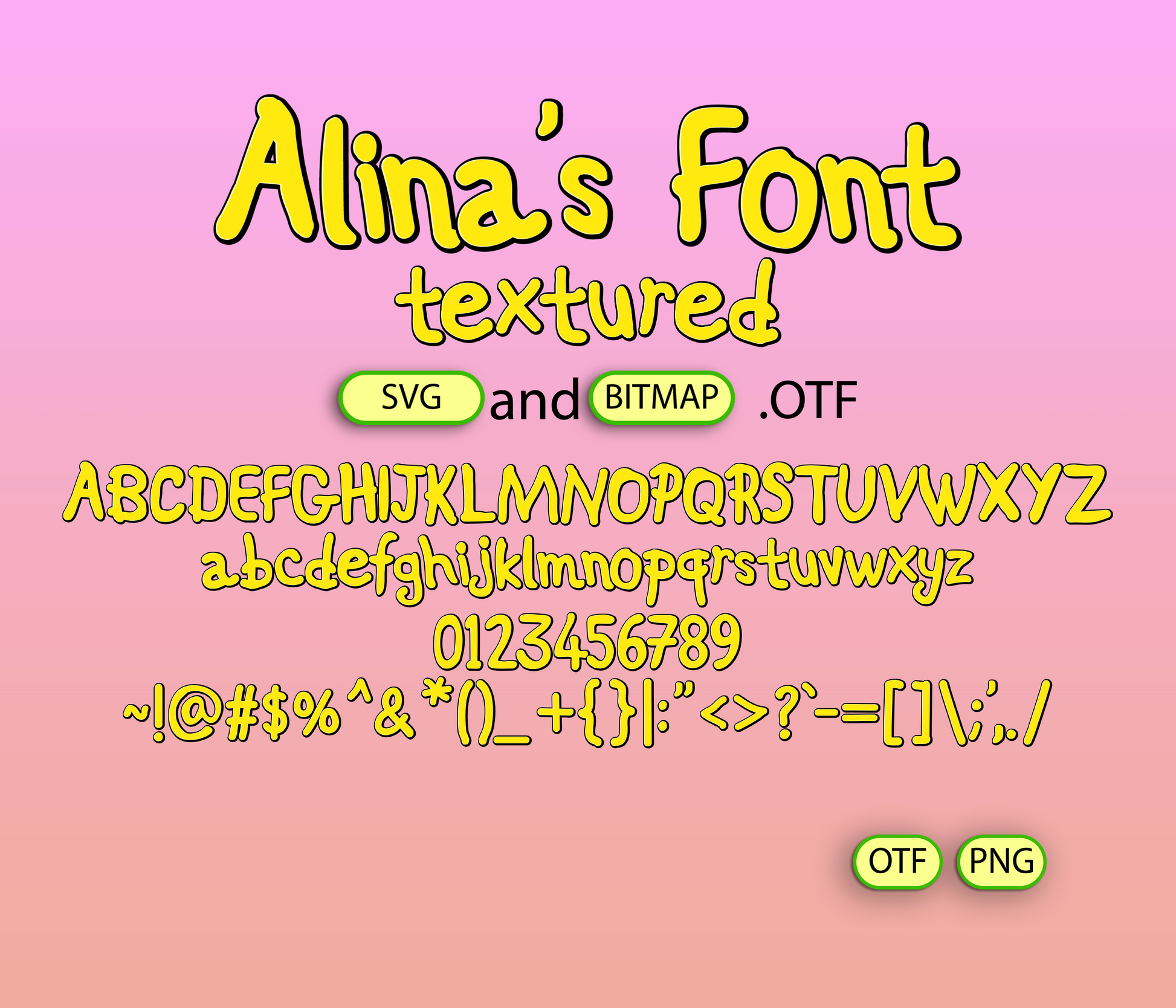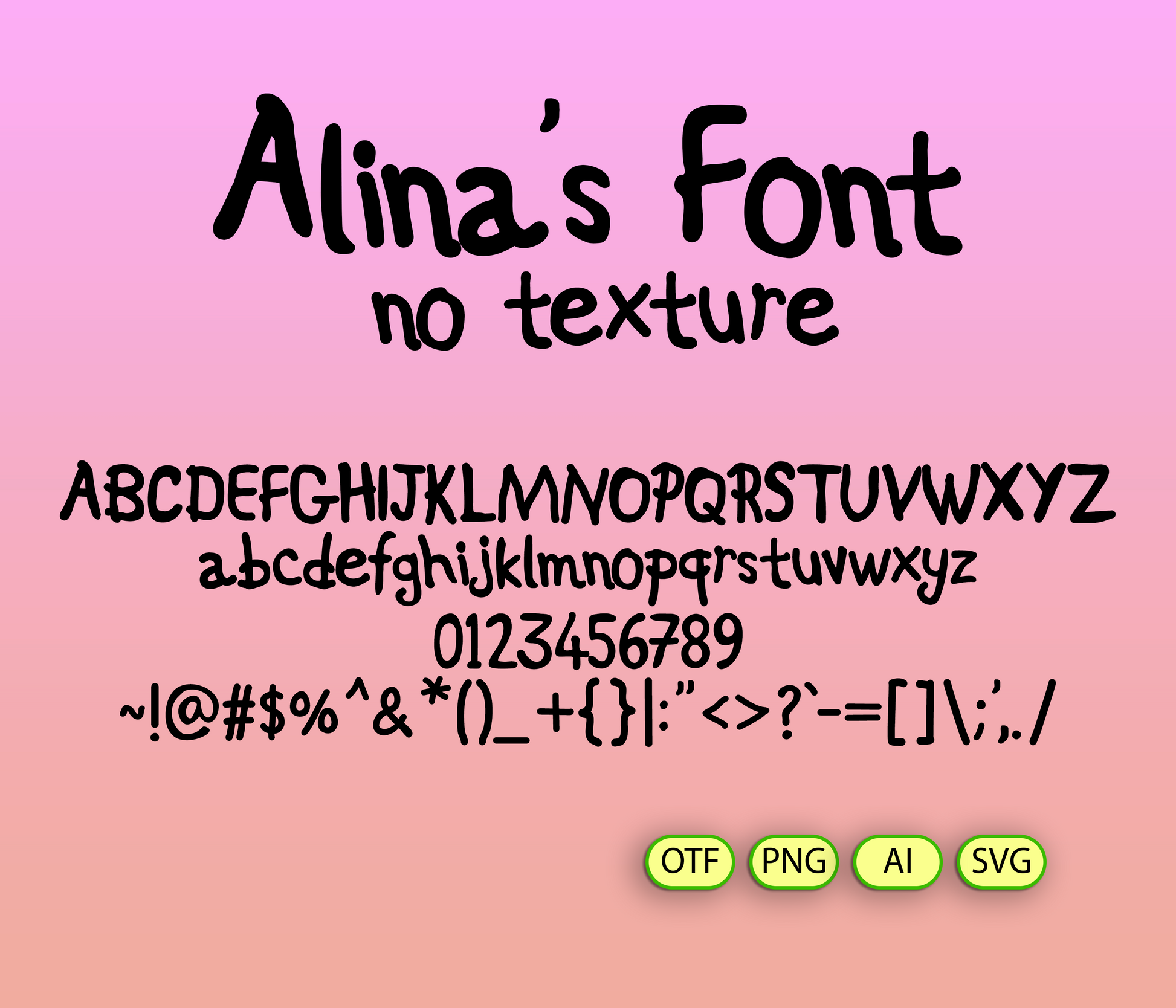
Woodland Friends Font Textured
Step into the enchanted world of a beloved honey-loving bear and his adventures. This typeface captures the innocent charm and gentle spirit of childhood tales, perfect for creating heartwarming designs.
Our Forest Tales font features soft, rounded characters that reflect cozy storybook comfort. Perfect for:
The Forest Tales font includes both honey-textured and clean variants, compatible with all design platforms, including Canva. Ideal for both digital and print projects.
Add storybook magic to your designs with this whimsical typeface. Perfect for nursery decorations, children's materials, and any project needing a touch of woodland charm.